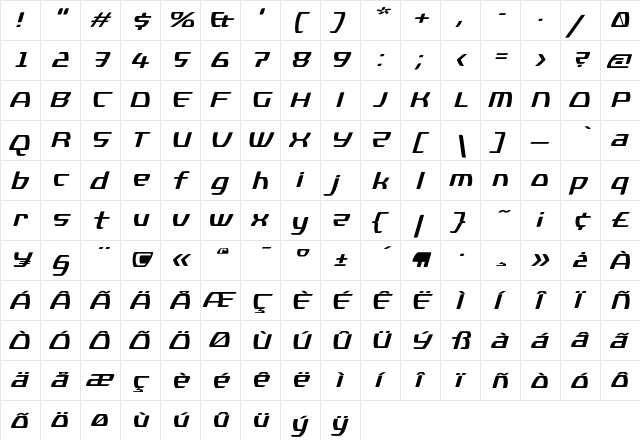
Kompressor Bold Italic Font Preview
Design Context for Kompressor Typeface
Kompressor takes a measured approach to typography — its balanced proportions and neutral character make it a reliable workhorse for both digital and print work. Its italic angle brings a sense of urgency and motion to the letterforms. The heavy weight commands attention and anchors typographic hierarchies.
Pro Tip: Try Kompressor for annotation and caption copy alongside an upright companion — the contrast in angle creates a dynamic but ordered typographic system.